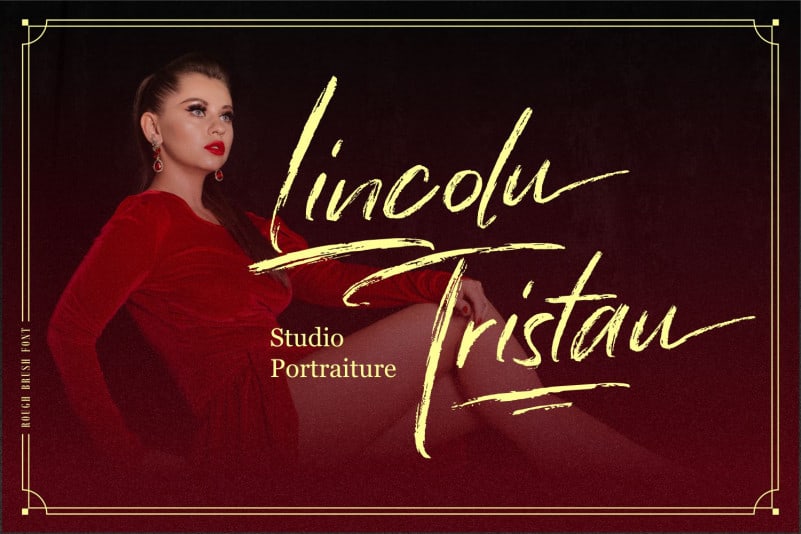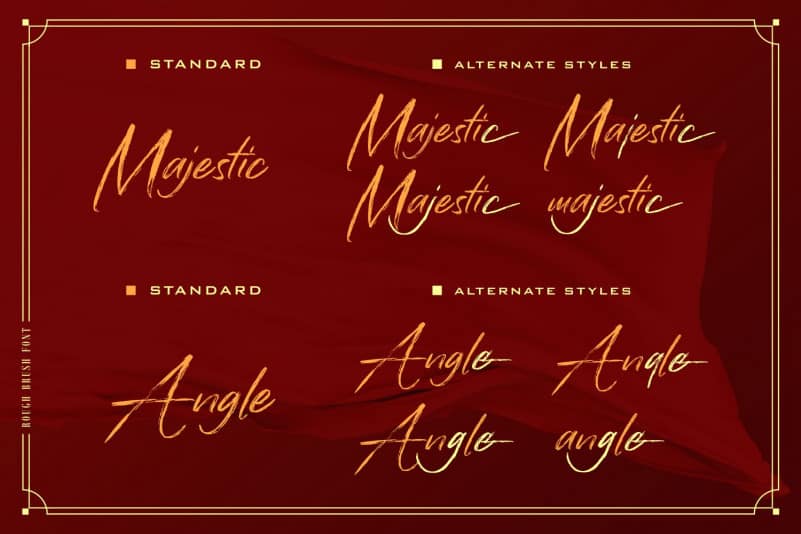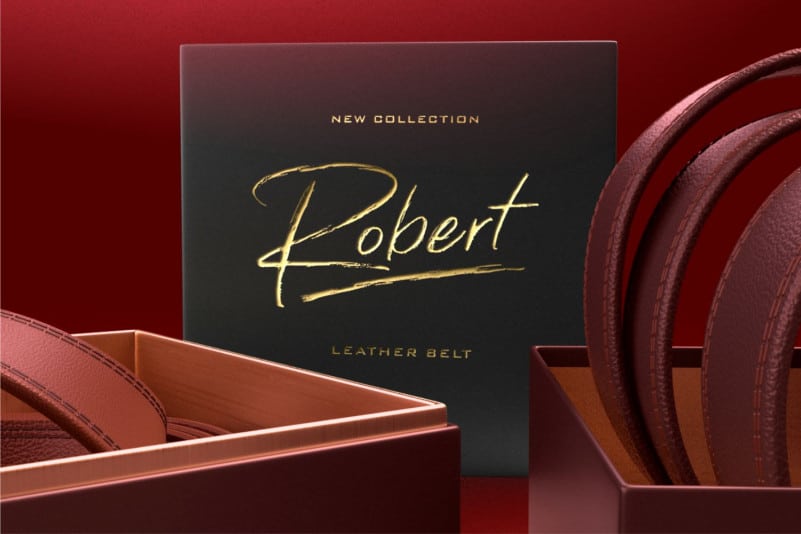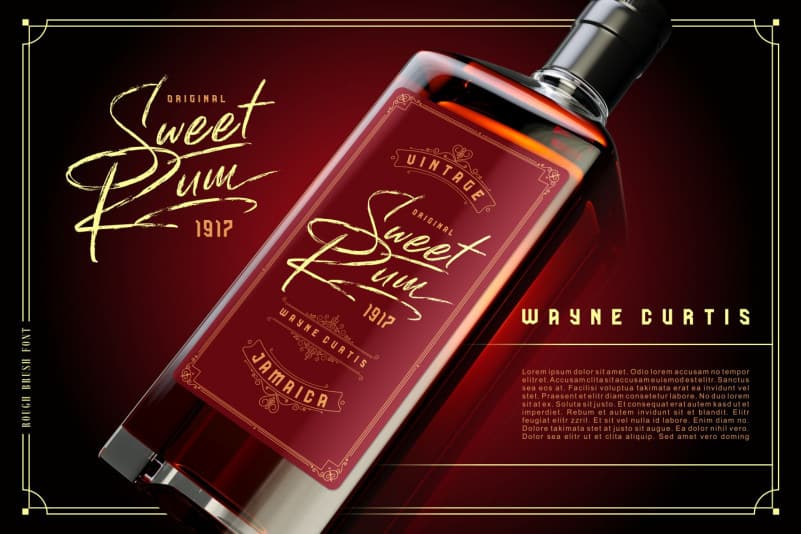
Han Le Tours Brush Font
it’s a Brush Rough Font. Han Le Tours Brush Font is perfect for product packaging, branding project, megazine, social media, wedding, or just used to express words above the background.